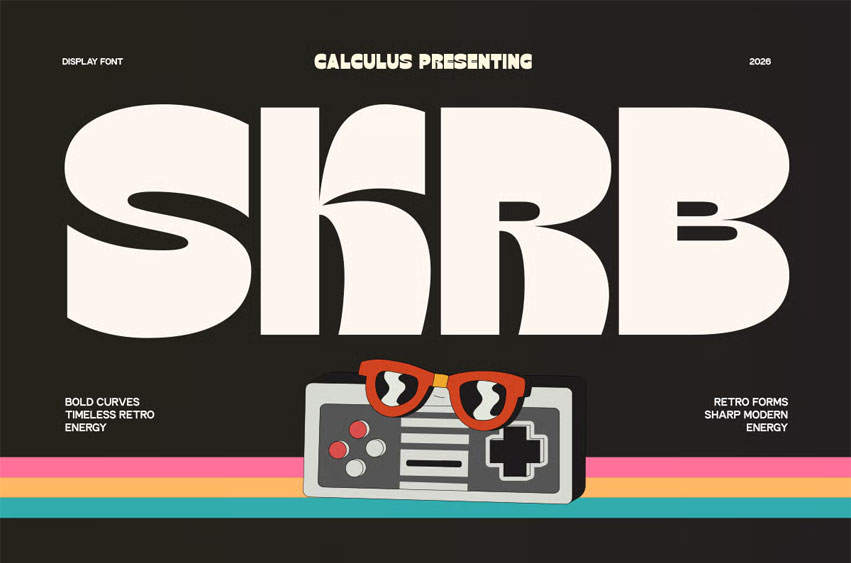
SKRB Font Groovy Display Sans Serif is a bold retro-inspired display typeface designed to deliver strong visual impact with a playful modern twist. Featuring chunky letterforms, smooth curves, and distinctive geometric cuts, CC SKRB captures the spirit of vintage arcade culture and groovy pop aesthetics while maintaining a clean contemporary attitude. Its oversized structure and expressive silhouette create a loud, confident typographic voice that instantly grabs attention.
Built with bold retro forms and modern display proportions, CC SKRB brings nostalgic energy into today’s design landscape. The font’s soft-rounded corners and exaggerated curves create a funky yet structured appearance, making it ideal for standout headlines, poster designs, gaming visuals, music covers, branding, packaging, and creative editorial layouts. Inspired by classic retro graphics and playful digital culture, this typeface blends timeless groove with sharp modern clarity.
Designed for maximum presence, CC SKRB performs exceptionally well in large-scale typography where personality and readability matter equally. Its thick strokes and dynamic shapes make every composition feel energetic, stylish, and visually memorable. Whether you’re building a retro-futuristic identity, vibrant social media graphics, or expressive branding projects, CC SKRB delivers bold character with effortless style.
- Groovy Display Sans Serif Style
- Bold Retro-Inspired Shapes
- Smooth Curves & Funky Geometry
- Strong Visual Presence
- Playful Yet Modern Character
- Perfect for Headlines & Posters
- Suitable for Branding, Packaging, Gaming & Editorial
- Clean Contemporary Construction
CC SKRB delivers groovy retro energy — a bold display sans serif crafted to make your typography feel playful, iconic, and impossible to ignore.